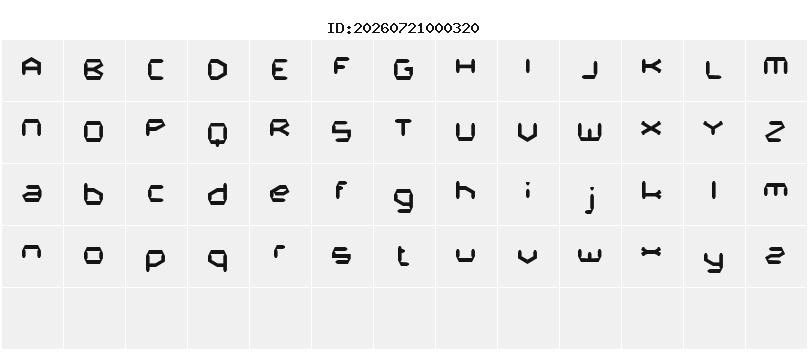
Flotsam Astronaut Preview
About Flotsam Astronaut.ttf
Flotsam Astronaut.ttf is a modern, elegant sans-serif font designed for ultimate readability and visual harmony. Perfect for branding, headlines, web design, and print materials.